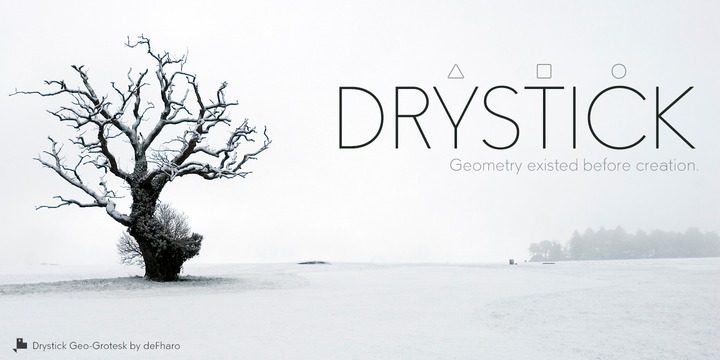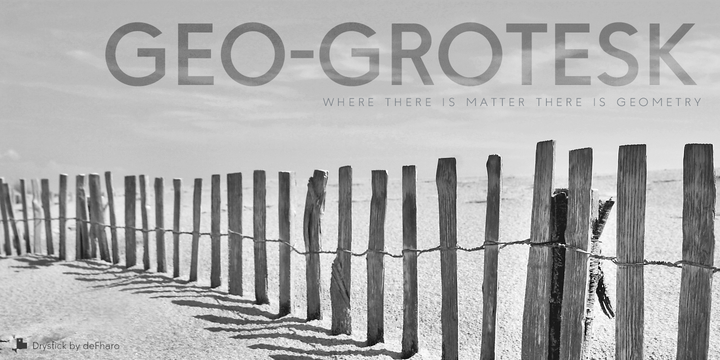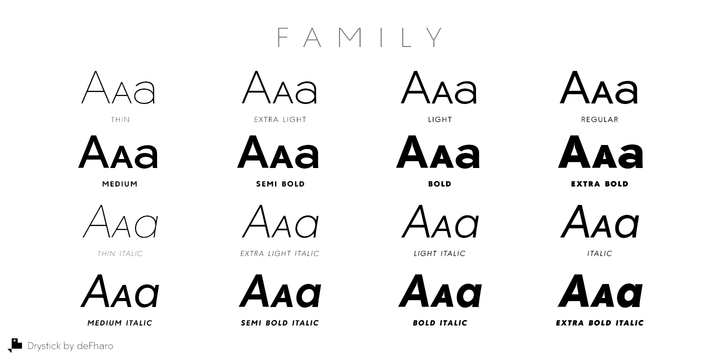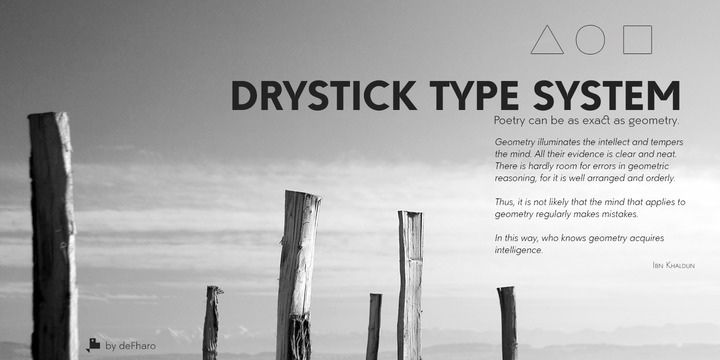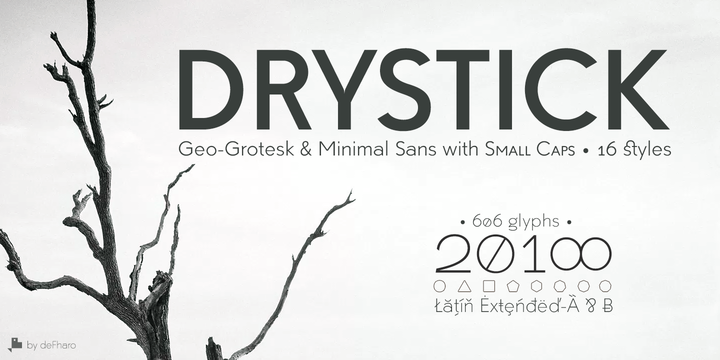
Drystick Geo Grotesk Font Family
About this font family
Drystick is a Sans Serif typographic family of Geo-Grotesque style with 8 pesos plus the italic versions all include small capital letters the symbol of Bitcoin (b #) and other cryptocurrency symbols.
It is a geometric typography, minimalist, with neo-grotesque modulations. The typeface has alternative letters and numbers, small caps and advanced OpenType functions.
The Italic versions have some of their own characters (&, @, Q, a, g, y), these versions have many optical corrections to balance the deformations created in many curves by the mere inclination of the letters, which in the case of This typography is